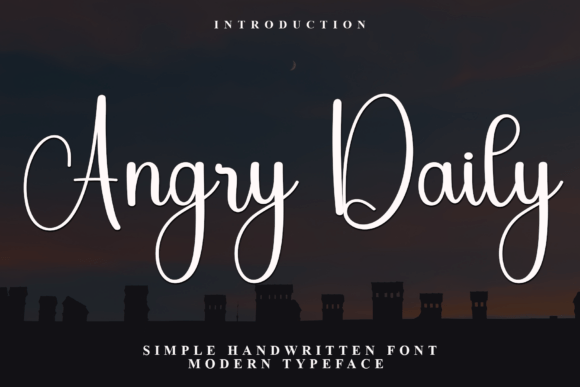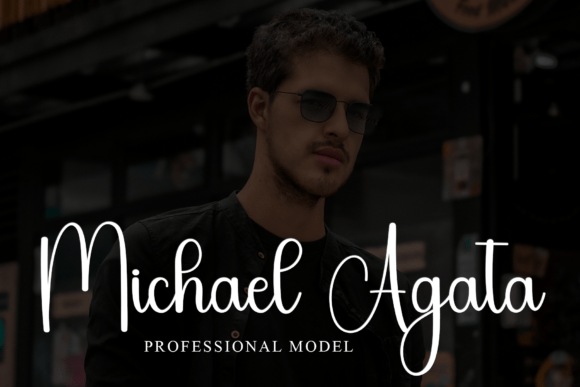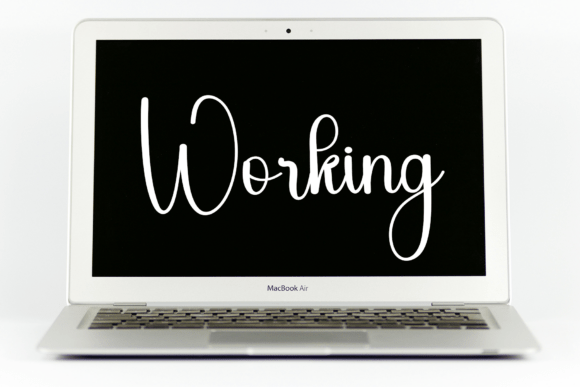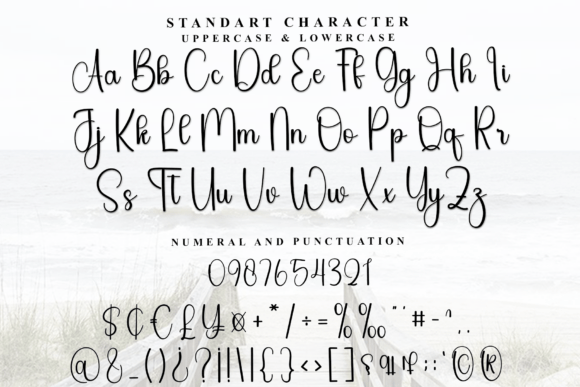
Angry Daily Font: Casual Handwritten Script for Social Media
About the Angry Daily Font
The Angry Daily Font offers a perfect balance of form and function for your design needs. Angry Daily is a casual and creative font that exudes warmth and friendliness. Its round, playful strokes create a relaxed and approachable feel, perfect for personal projects, invitations, and social media graphics. The font’s charming, hand-drawn aesthetic adds a fun and unique touch to any design.
Angry Daily’s friendly, rounded forms make it ideal for headlines, short text blocks on posters, and branding elements requiring a casual, approachable feel. It works well for packaging design, particularly for products targeting younger demographics or those with a playful brand identity. However, its informal nature makes it unsuitable for body text, long paragraphs, or user interface elements where readability is paramount.
The font’s inherent warmth pairs well with clean sans-serif fonts like Open Sans or Lato for a balanced contrast. For a more playful pairing, consider a script font with a similar informal energy, but ensure legibility remains a priority. Avoid pairing it with overly serious or geometric sans-serifs as this could clash with Angry Daily’s casual character.
Angry Daily’s core personality is best described as cheerful and approachable, yet still retains a degree of quirky individuality. It suits brands and projects aiming for a friendly, approachable, and slightly unconventional aesthetic.
Angry Daily Font Usage Examples
Angry Daily Font Example